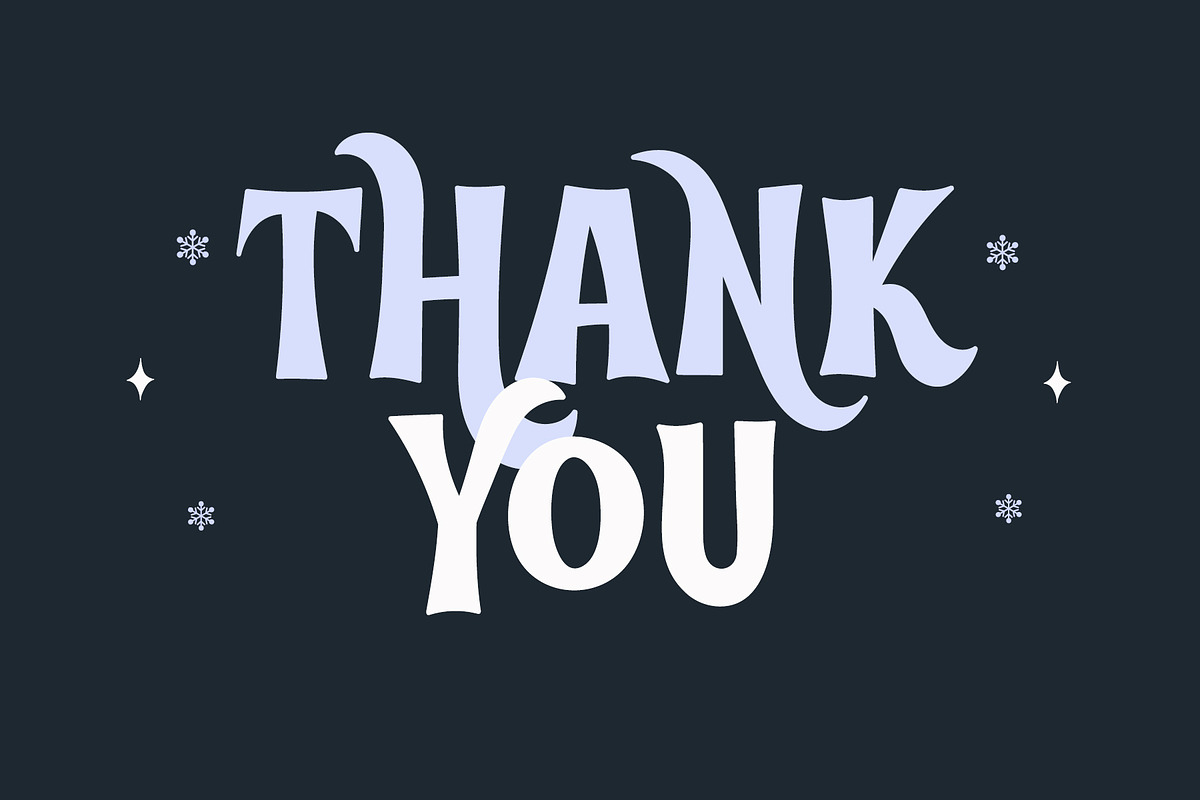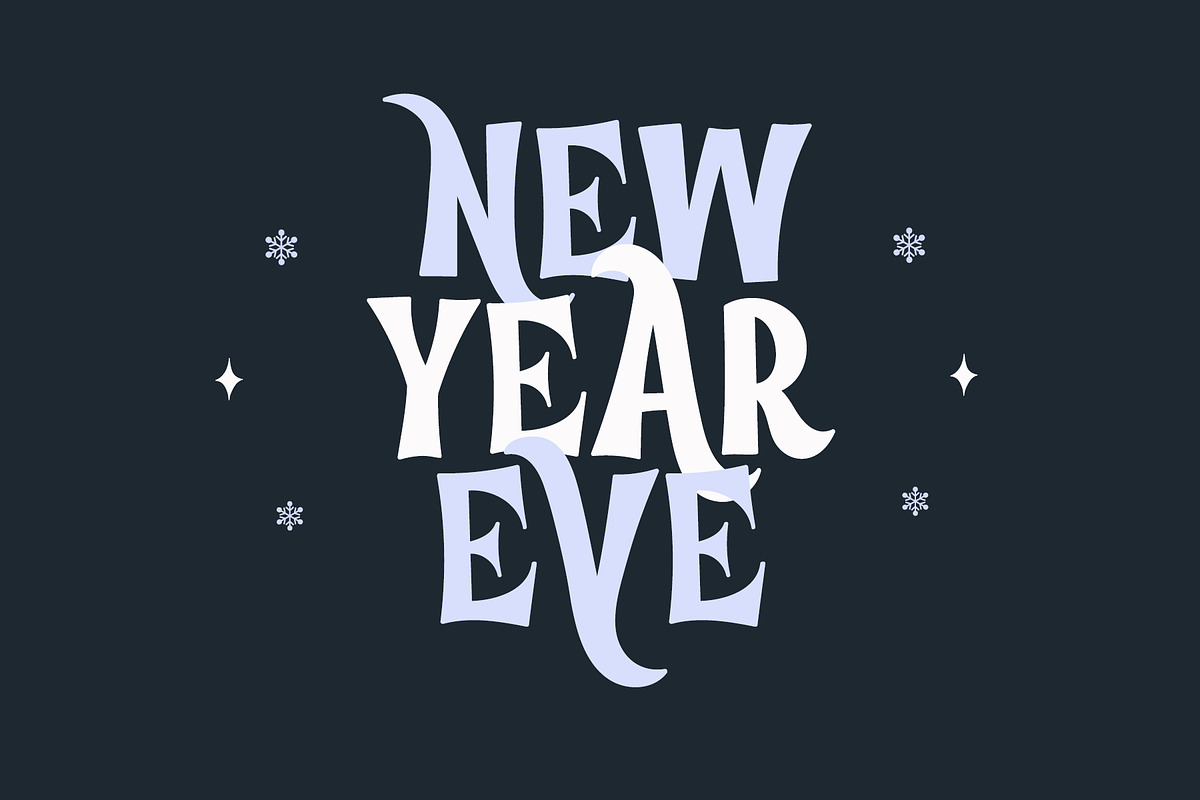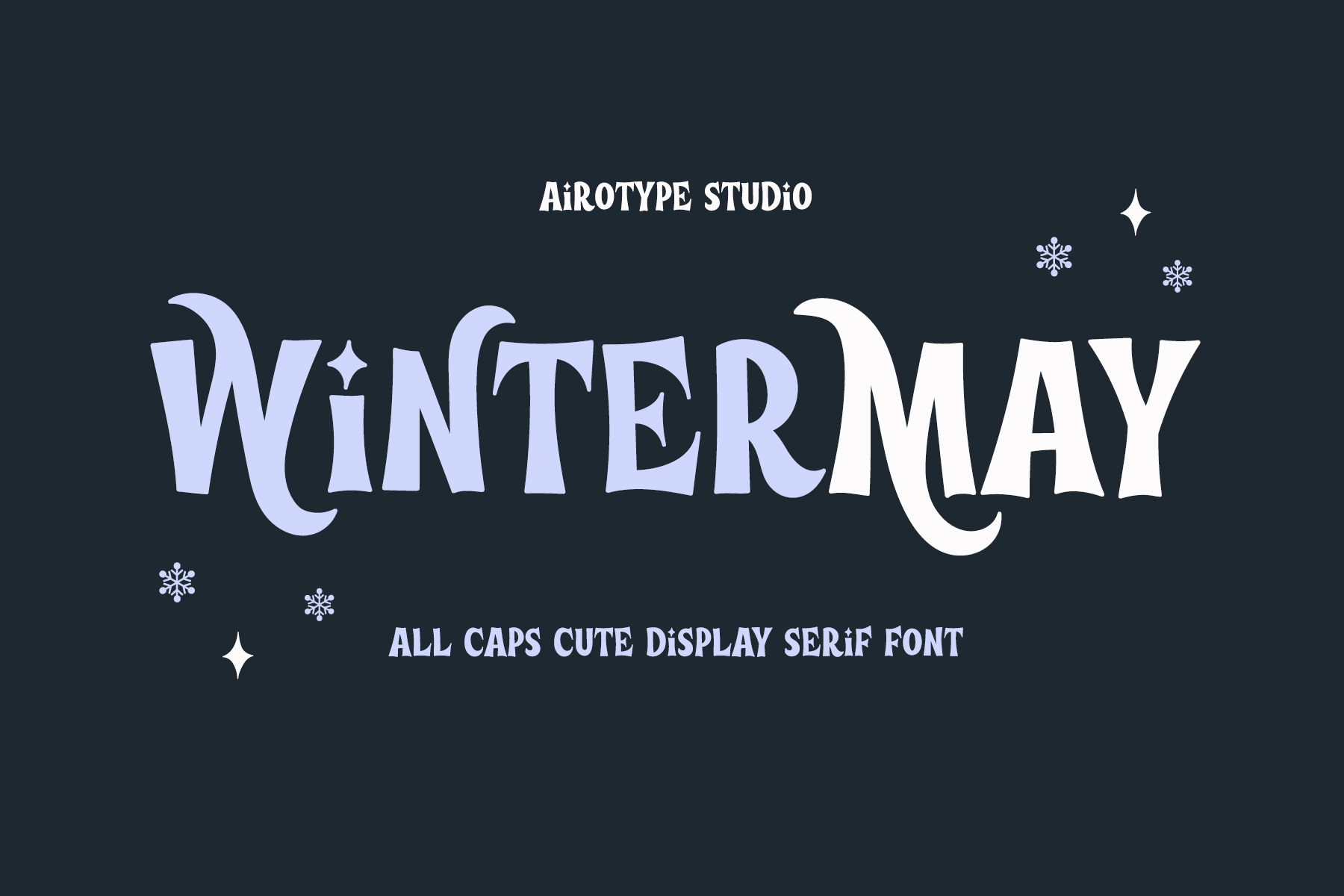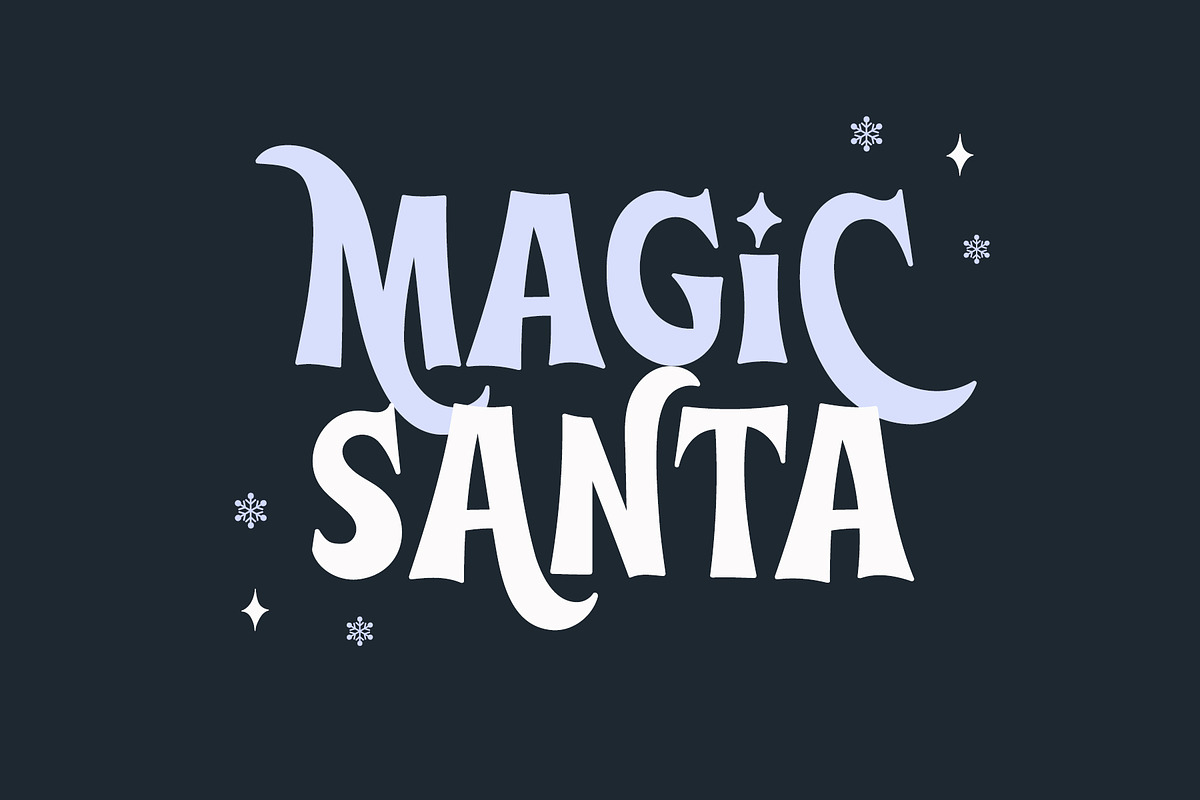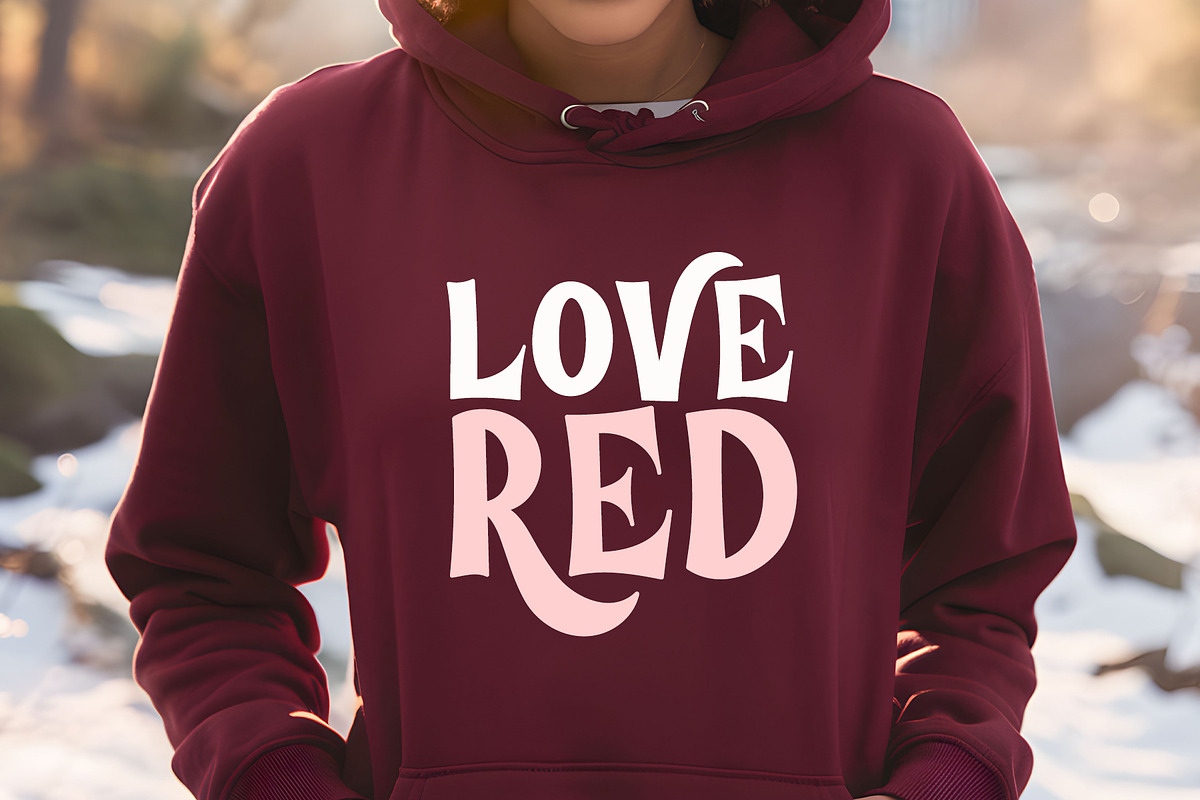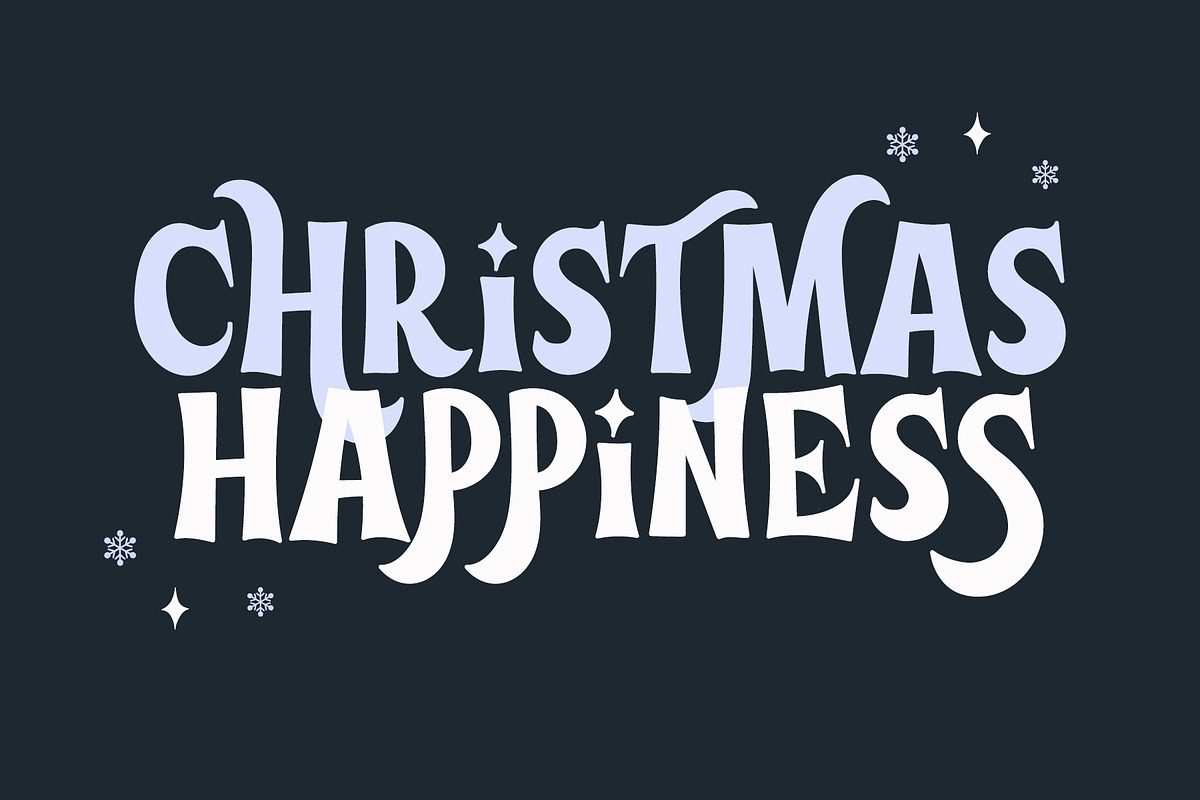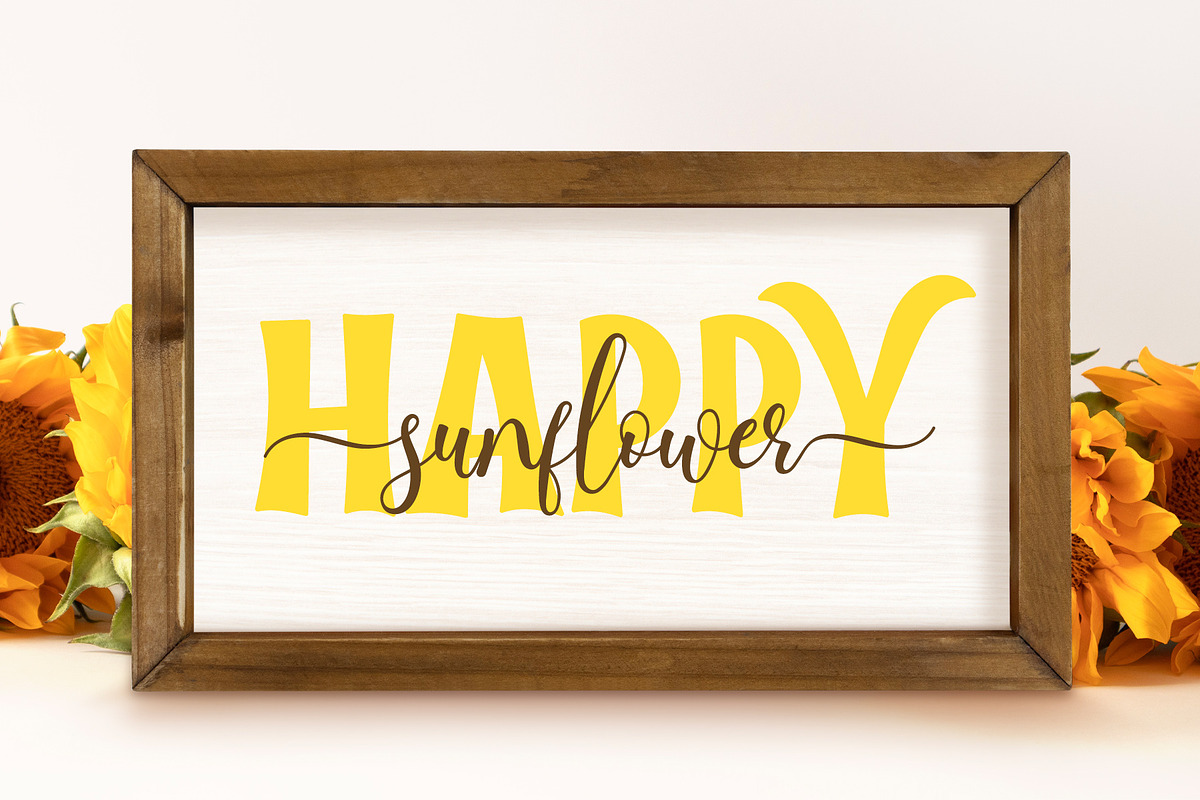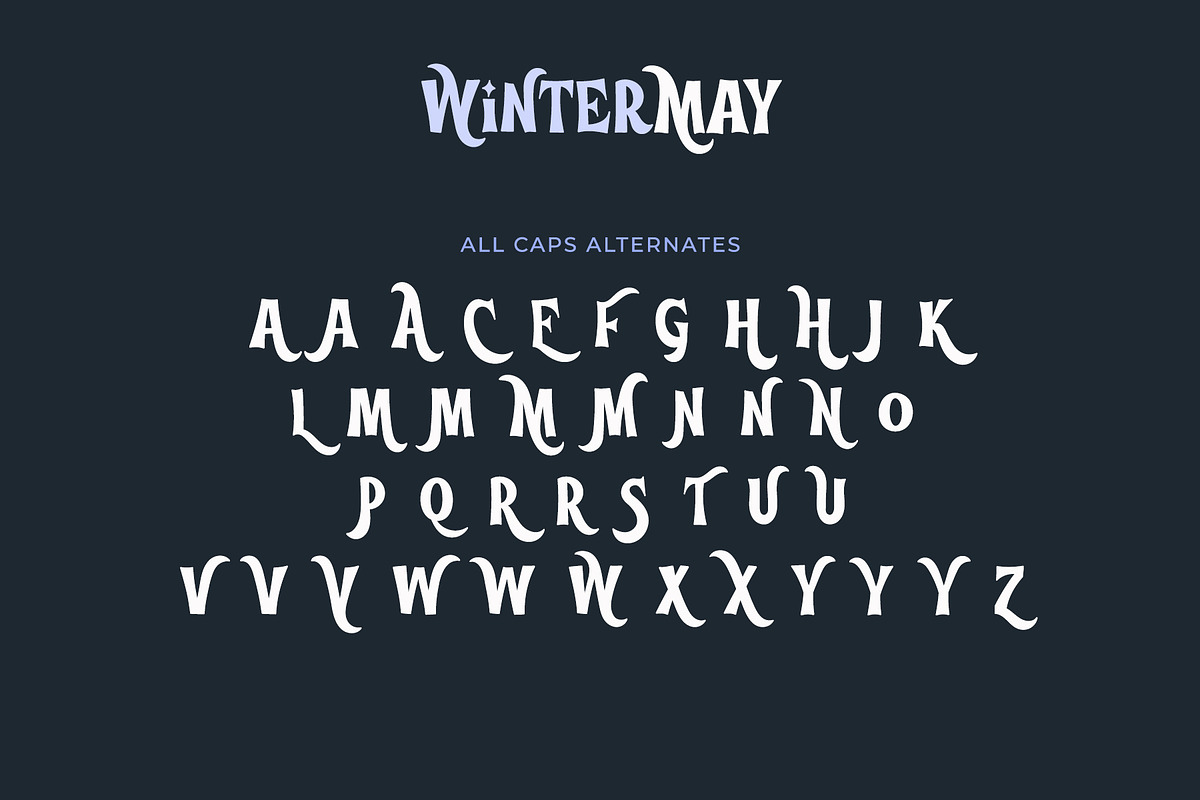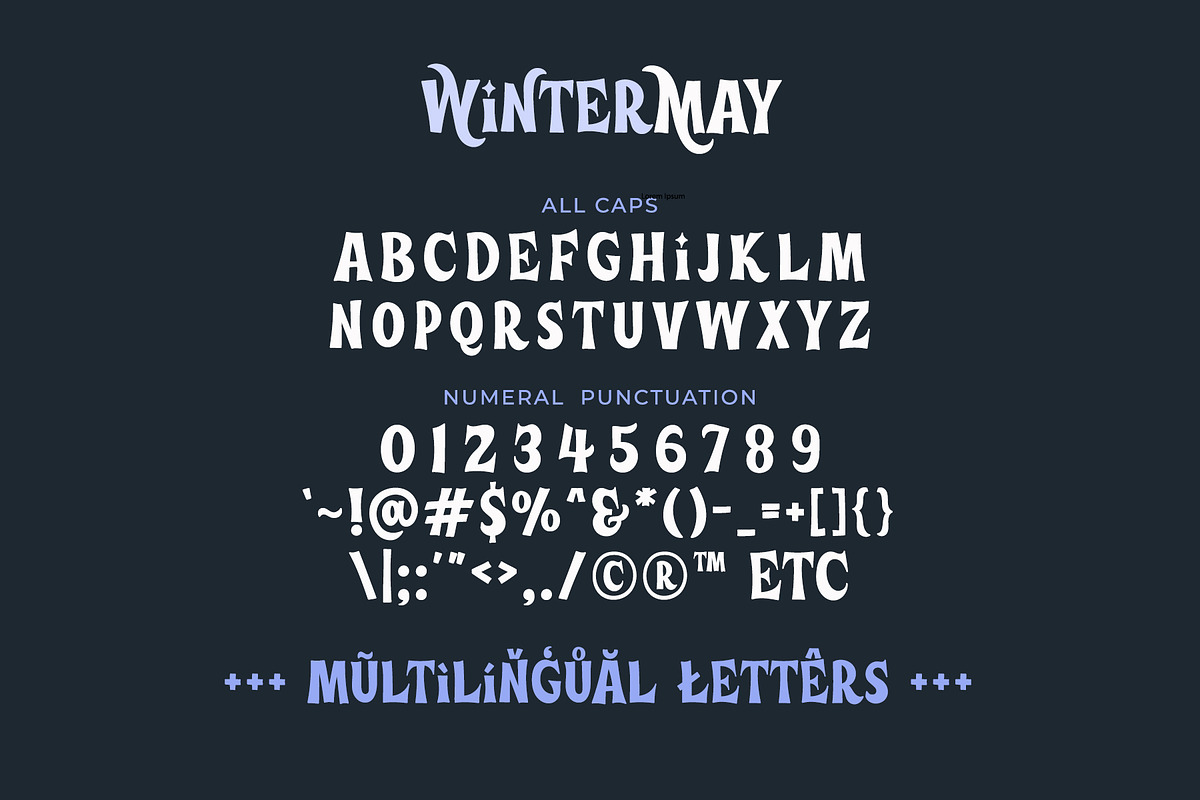
Winter May - All Caps Fun Serif Font
Winter May is all caps display font. It is bold, bouncy, and festive. This font has few alternates to give more options in designing.
Winter May is perfect font for wide ranges of design with holiday theme, such as thanksgiving, christmas, happy new year, t-shirt, display, crafting, sticker, quotes, tumbler, sublimation, and many more.
- All Caps
- Most Multilingual Accent